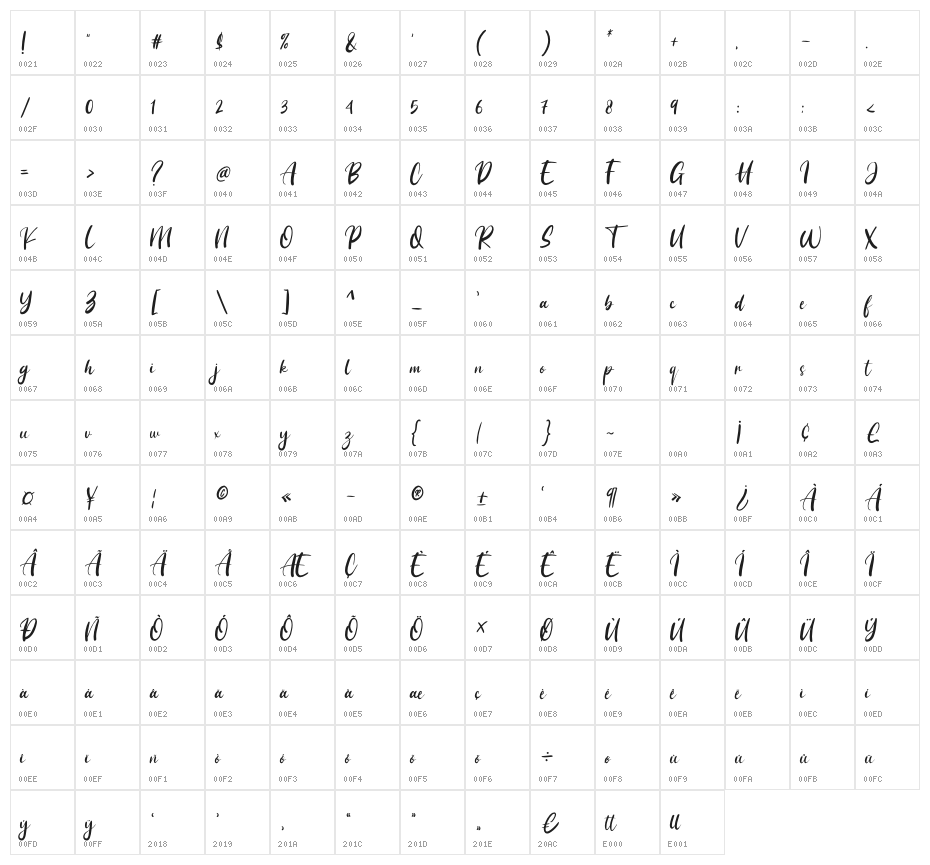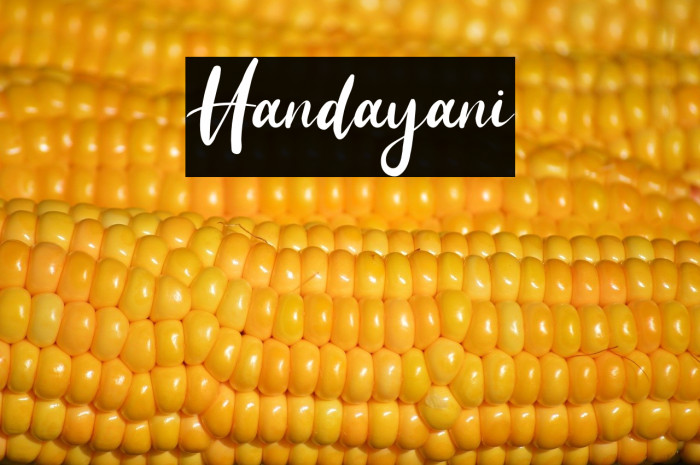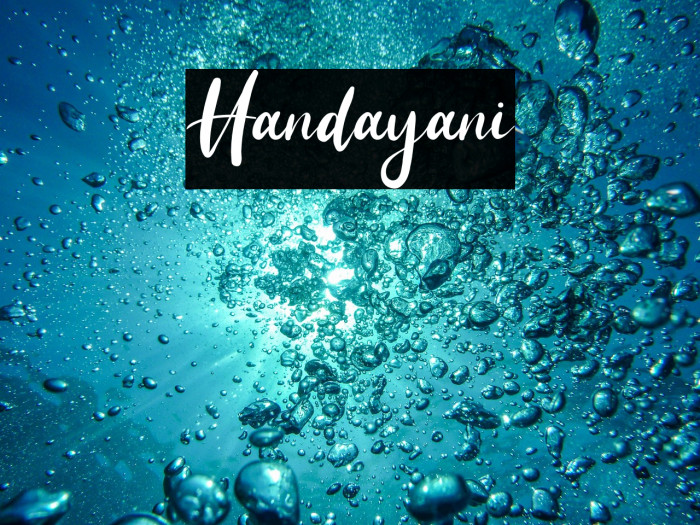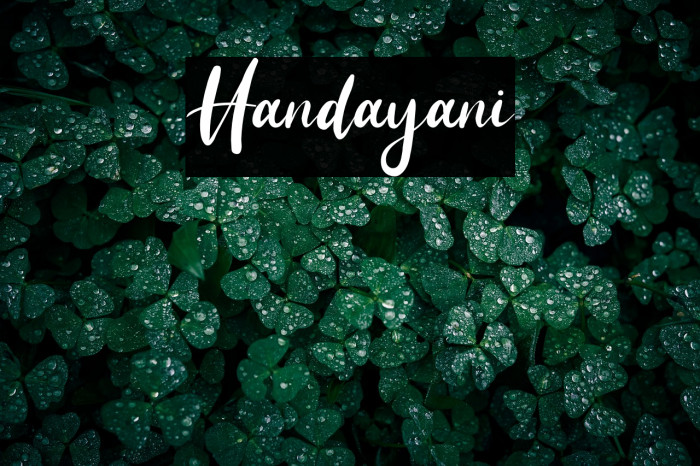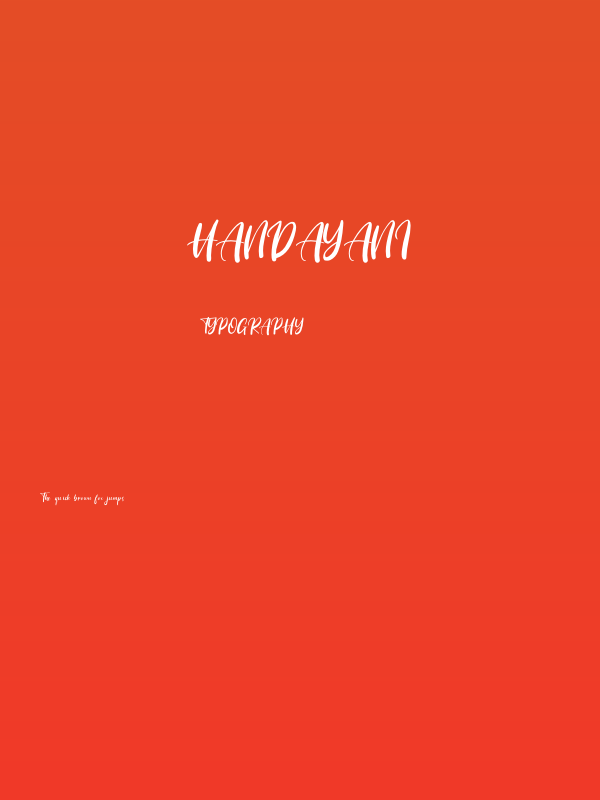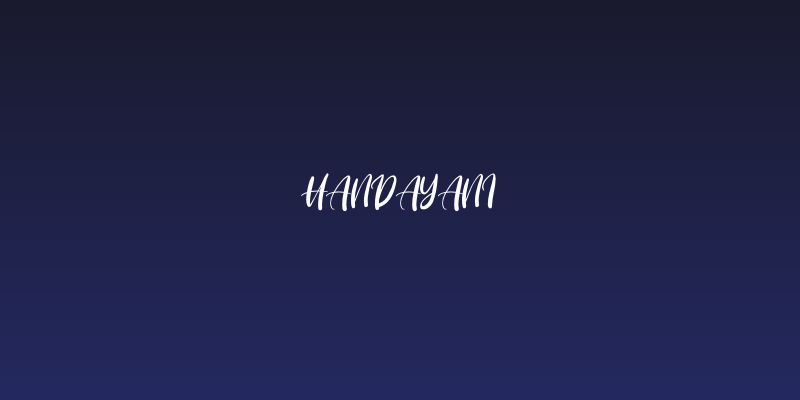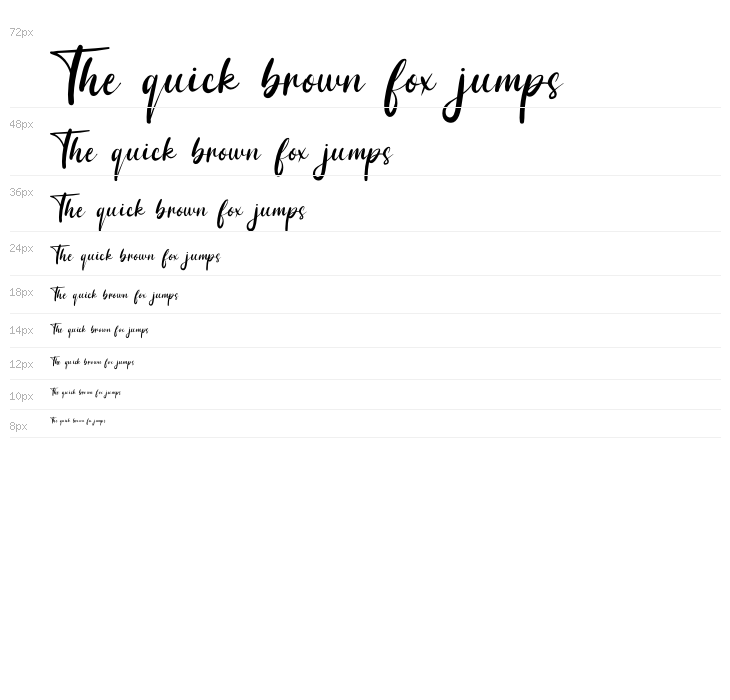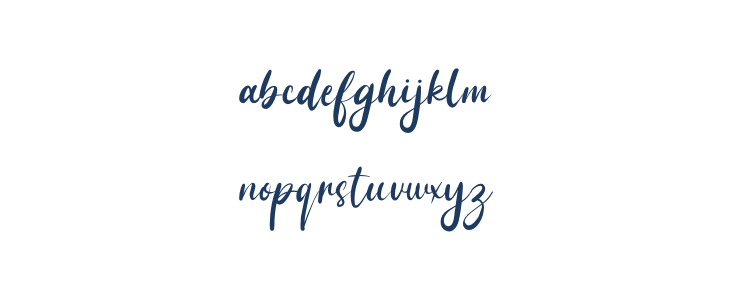
Handayani Font
Handayani Description
This font exudes a lively and elegant script style, characterized by its fluid, cursive strokes and a sense of movement. The uppercase letters are bold and sweeping, with a dynamic flair that captures attention. The lowercase letters maintain a consistent flow, offering a harmonious blend of curves and loops. Numbers and special characters are crafted with the same attention to detail, ensuring a cohesive appearance across all elements. The overall impression is one of sophistication and creativity, making it ideal for projects that require a personal touch.